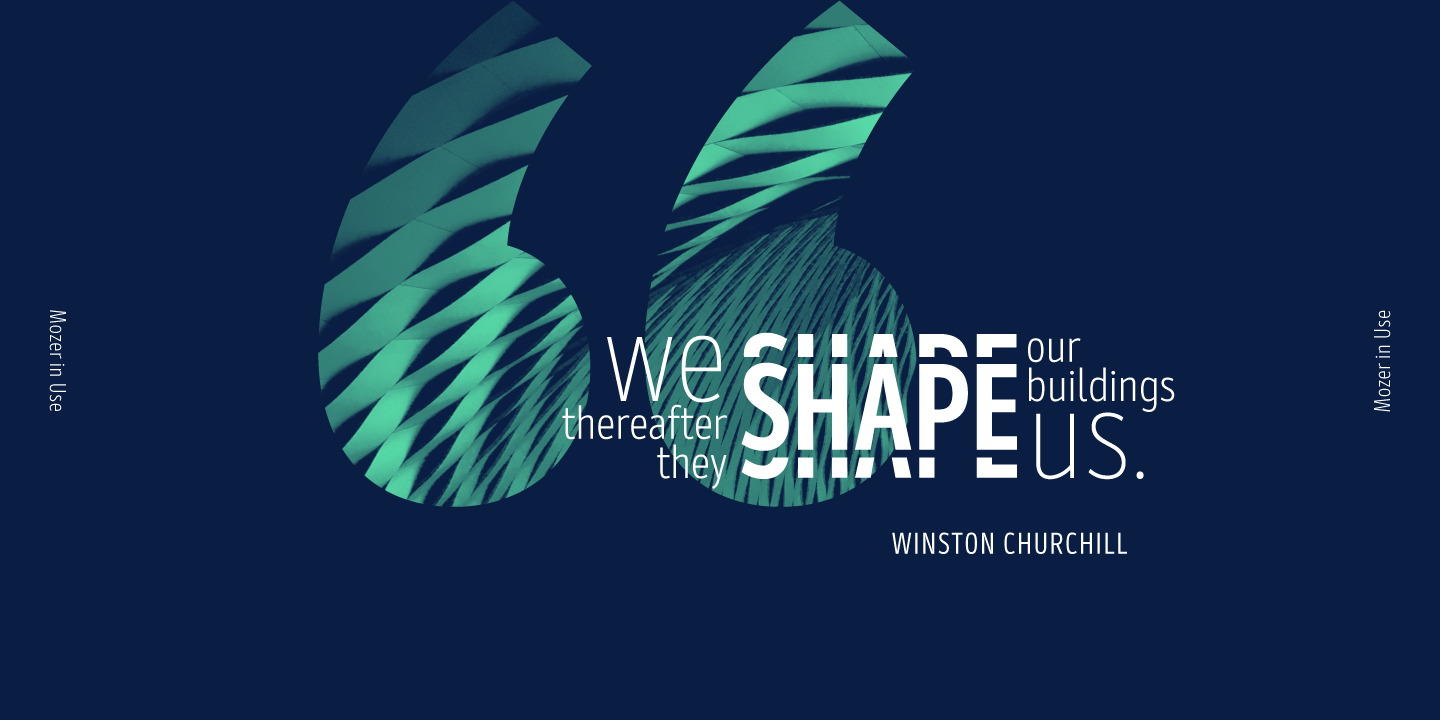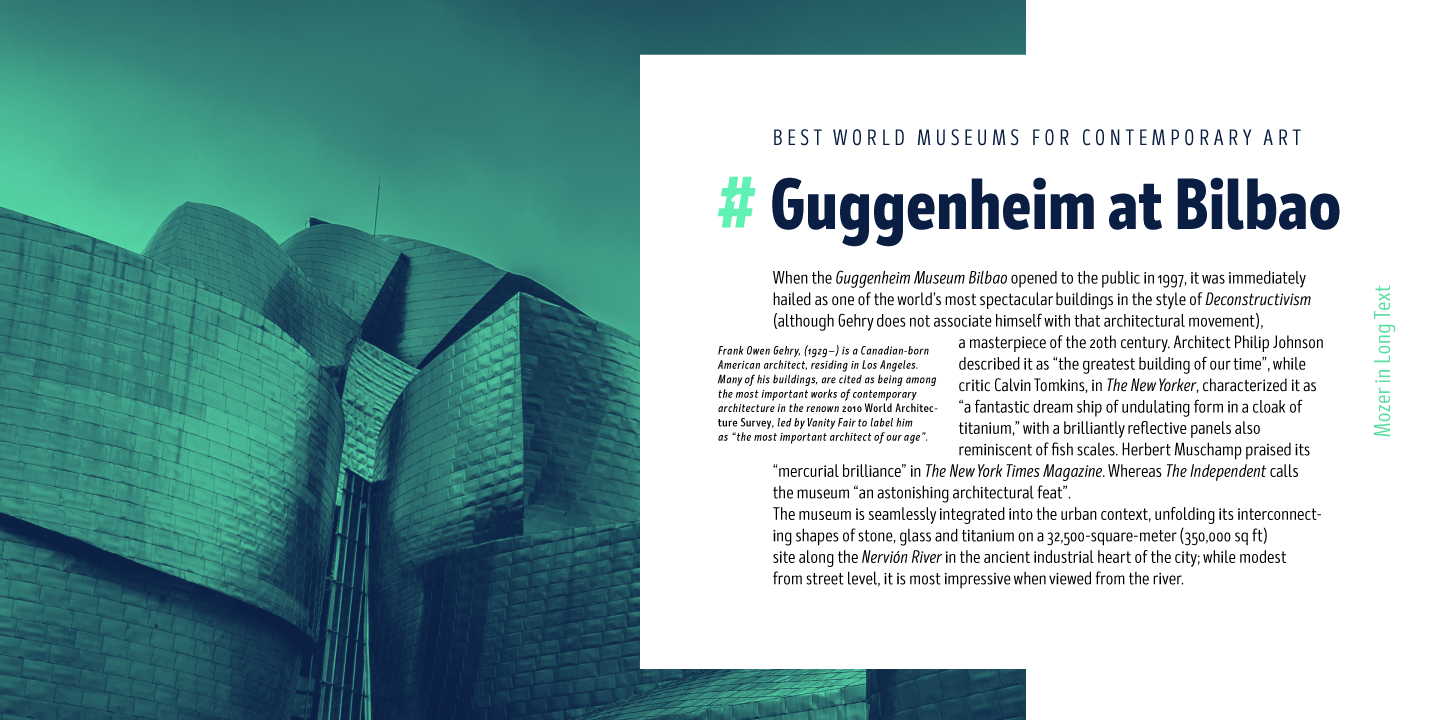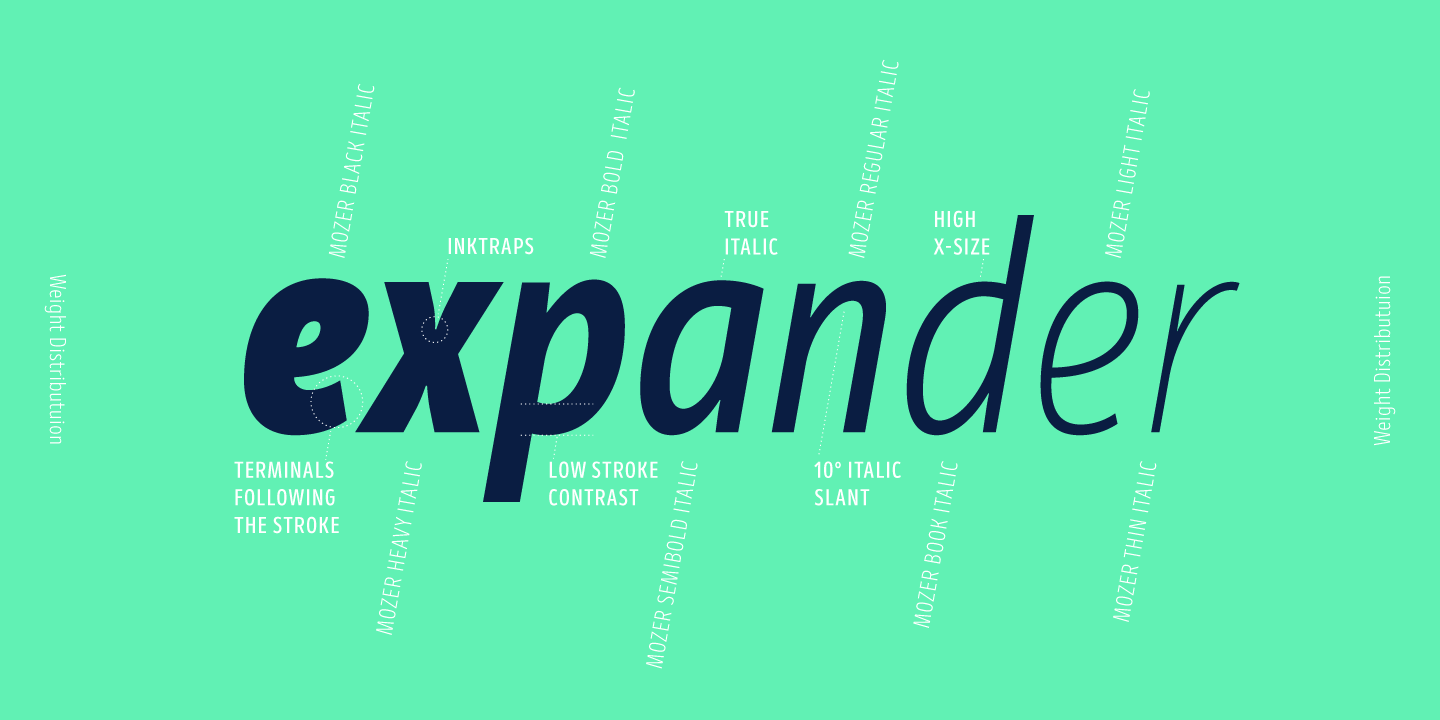
About Mozer
Mozer is a semi-condensed neo-grotesque type family of 16 styles ranging from Thin to Black matched with true italics. With a generous x-height, economical width, moderate contrast and overall solid appearance this typeface shows an uncompromising legibility…